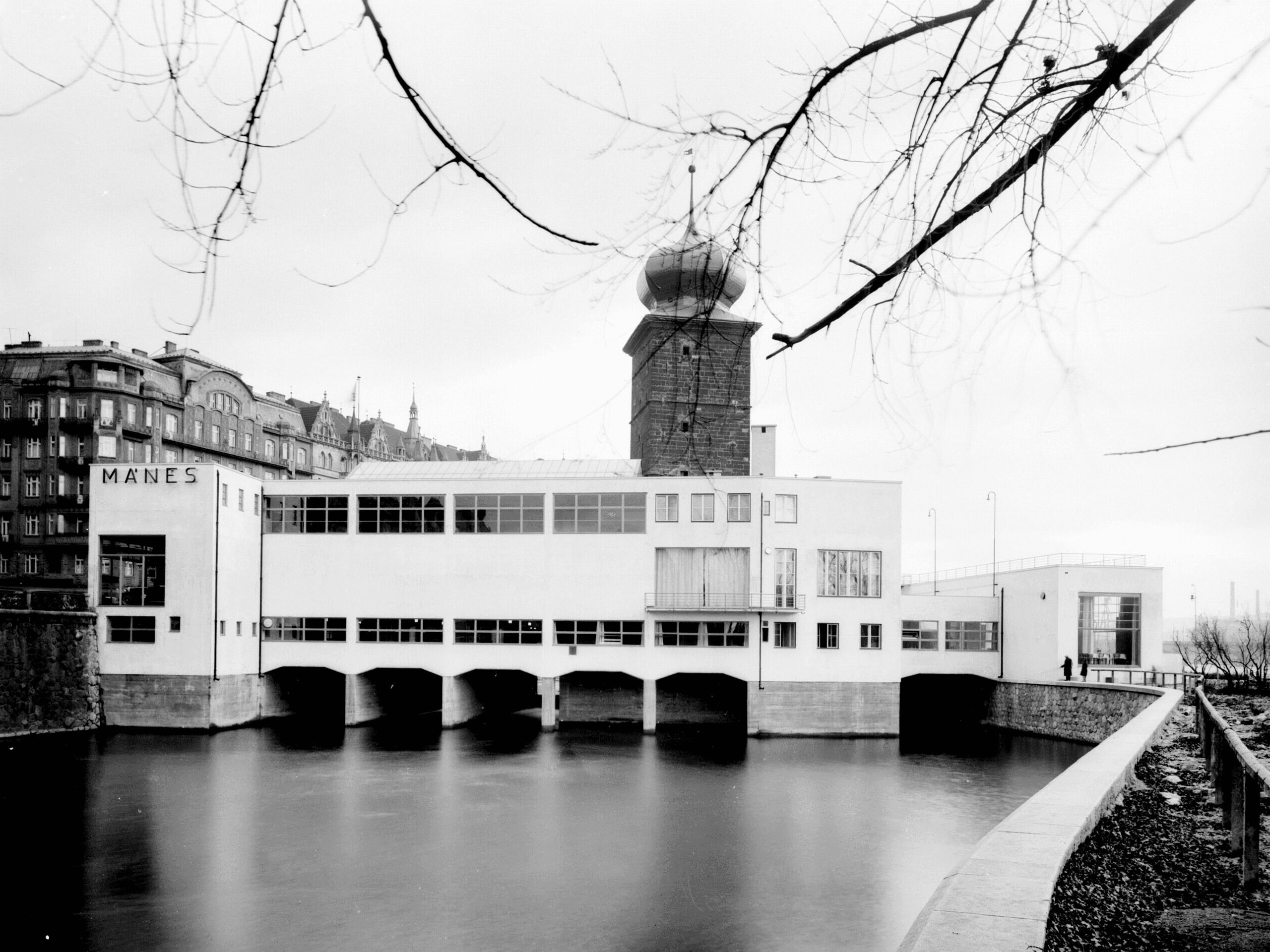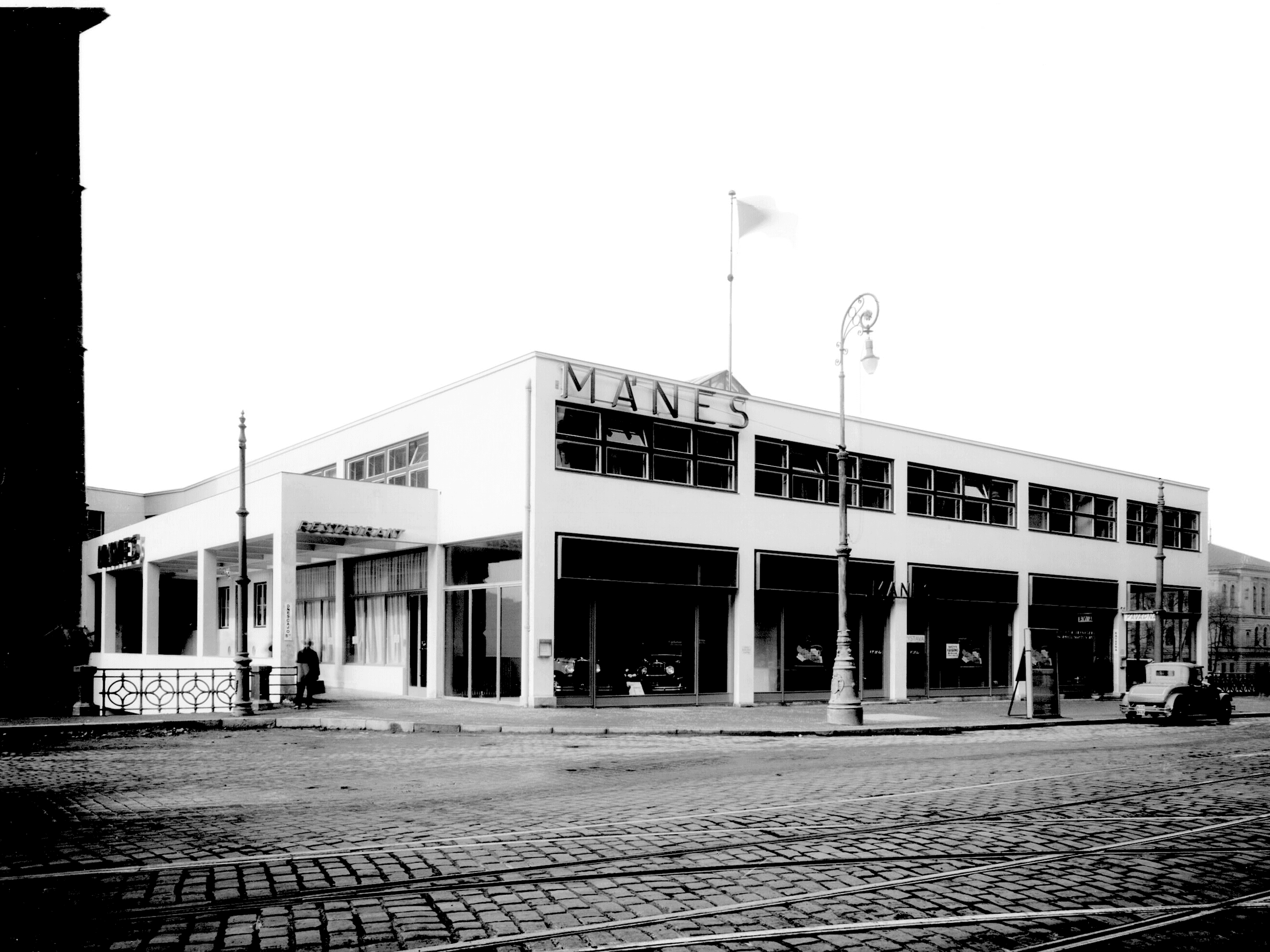
Manes
The five-weight typeface Manes was derived from the neon lettering on the façade of the legendary functionalist exhibition hall building, designed by the architect Otakar Novotný in 1930.